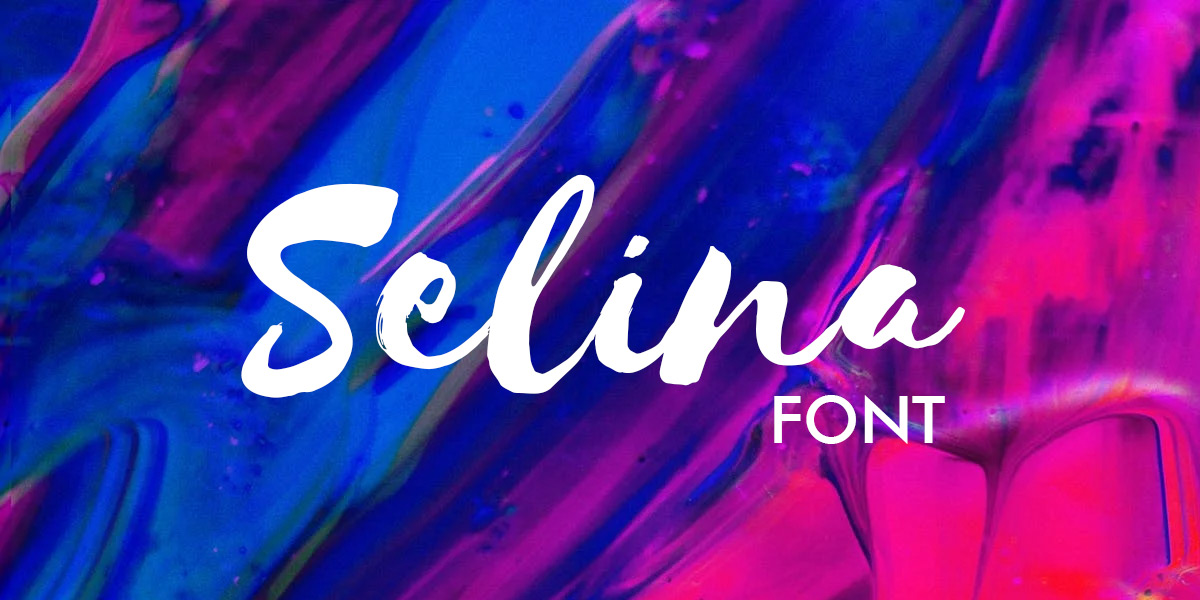
When you’re looking for the right font for your logo, the sheer volume of choices you’re confronted with can be overwhelming. The quickest way to cut that volume down and find the perfect font is to go into the search with a clear idea of which kind of font meshes best with your brand.
Choosing the Right Font for your Logo
The right font for your logo isn’t a question of personal preference. Your logo needs to match your brand. Fortunately, finding the right font for your brand is more math than art, and here are the formulas you’ll need to work it out:
formal and sophisticated = serif font
casual = sans serif font
bold and action-oriented = bold font
homegrown and organic = handwriting-inspired font
modern and cutting edge = futuristic font
quirky and fun = creative font
So before you can choose a font, you need a crystal clear understanding of your brand. Are you an in-your-face startup posed to upend your entire industry, or an old-school service provider who prides themselves on maintaining good old-fashioned values? If you need help figuring out your brand and how a font works into your branding, check out our article on the different font families.
Take a look at five examples of our diverse fonts from each of our six categories.
Rounded
Rounded fonts, like rounded shapes, are a great choice for any brand that has an approachable, engaging feel. There are lots of ways a font can do rounded, like:
Klasik
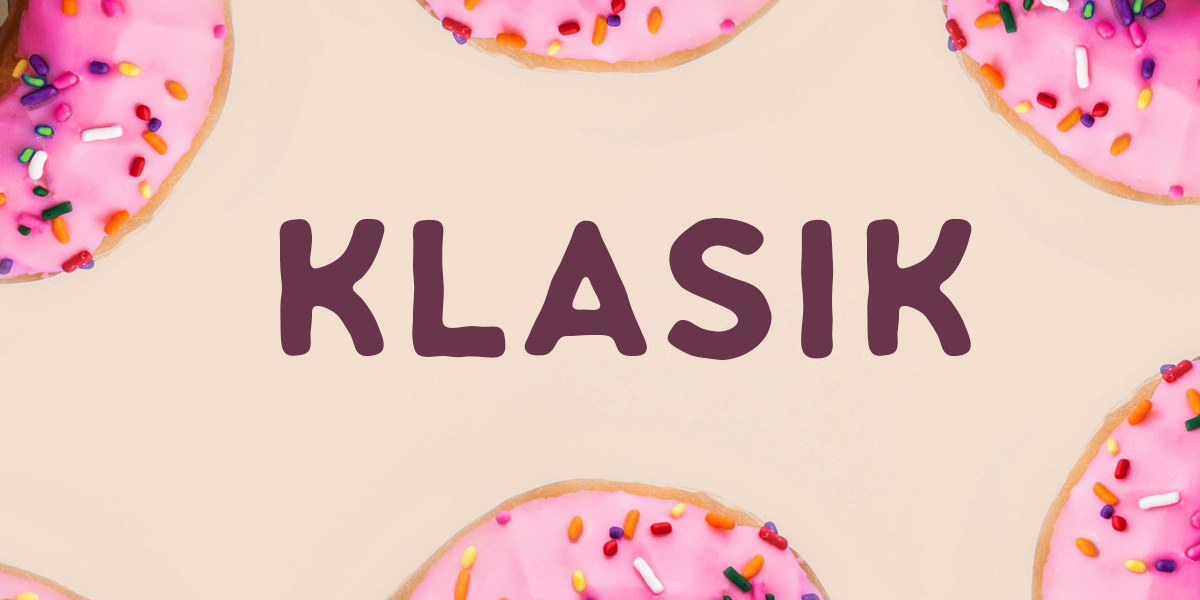
Klasik is an all-caps, unconventional take on rounded fonts. One of the things about Klasik that makes it stand out is that the edges of the letters aren’t perfect straight lines; they have a hand-shaped, malleable quality that makes them look like they’ve been sculpted with dough. This makes it a perfect font for bakers, sculptors and any company that brands itself as handcrafted.
Fontastique
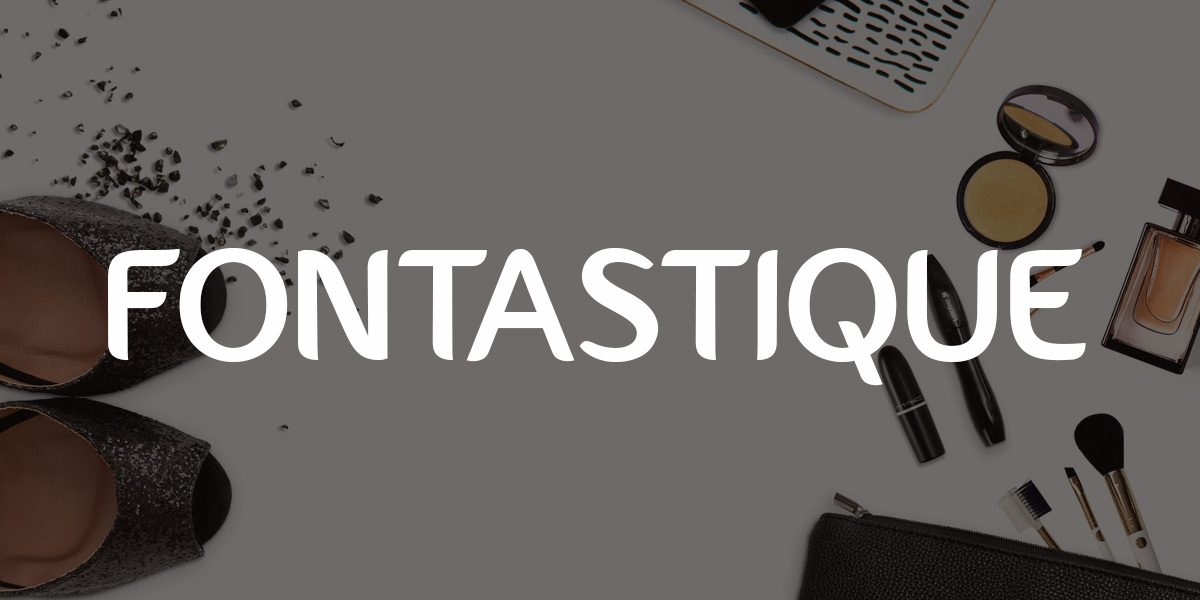
Fontastique goes beyond what we typically expect in a sans serif font by turning portions of its letters into almost-complete circles. For an example, take a look at its lowercase D. As a curvy font with very few hard angles, Fontastique has a soft, feminine feel that makes it perfect for any women’s apparel or beauty brand.
Orborn
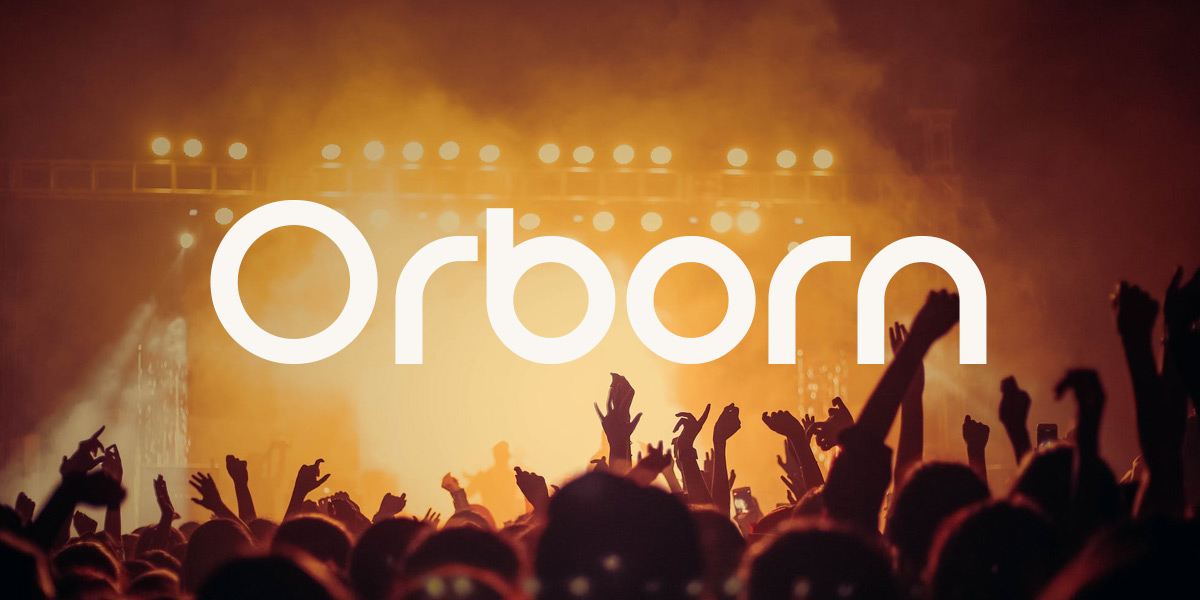
Much like a few other rounded fonts, Orborn turns certain letters (like its lowercase A) into perfect circles. One of the cool things Orborn does is turn some of its capital letters into larger versions of lowercase letters, which only adds to the friendliness factor and makes it a great choice for any brand that aims to feel like the life of the party.
Maxwell
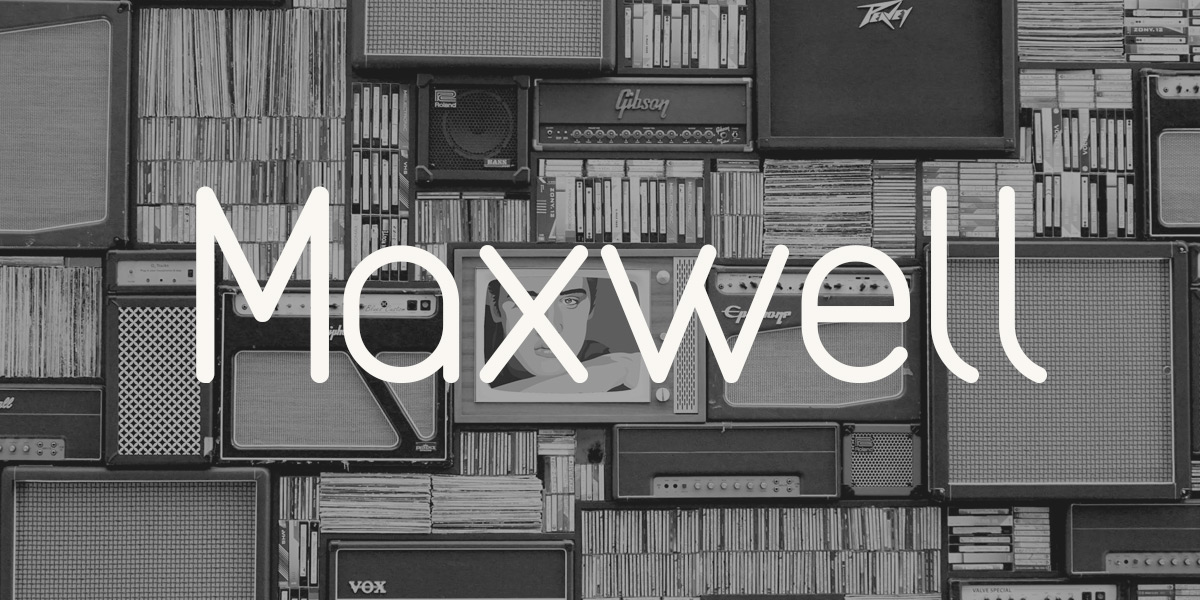
Maxwell is a font that’s got straight lines, rounded edges and a few quirks. Take a look at its capital H and the height of its lowercase I. It’s a font that looks clean and conventional at first glance, but once you spend a little more time with it, its personality shines through. Maxwell’s a great choice for a brand with a similar persona: clean-cut, but with a funky undercurrent.
Aquatico
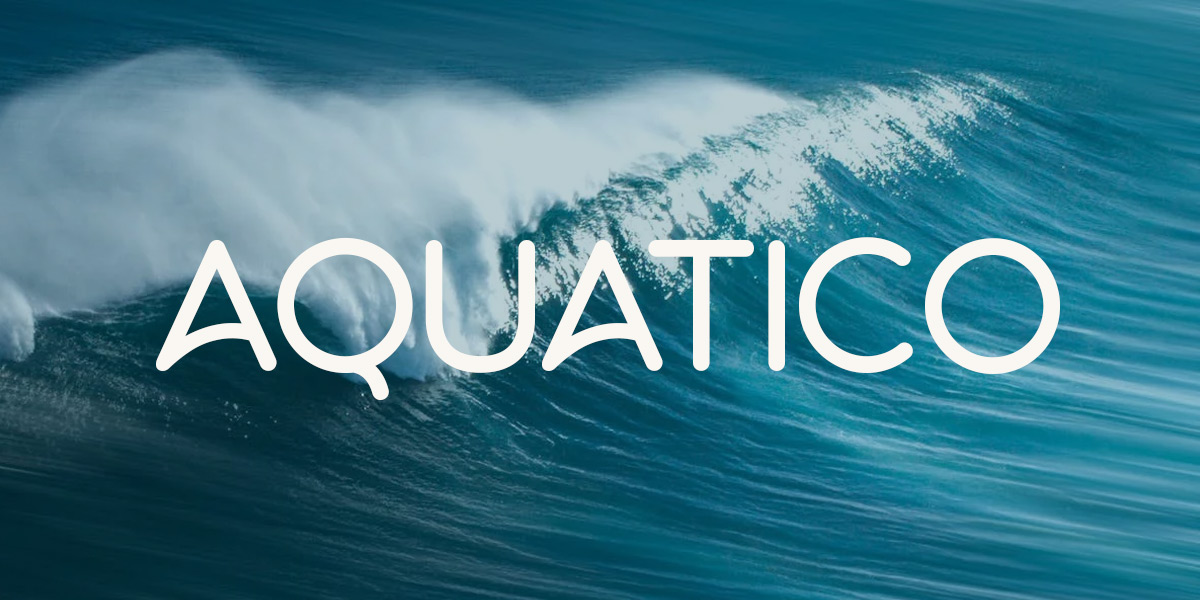
As its name implies, Aquatico has an aquatic feel. Take a look at its capital A to see the shape of a cresting wave in the middle line. That’s not the only spot where this rounded font feels open and free like the ocean. Certain capital letters, like K and R, have detached sections (take a look in our logo maker to see what we mean) that give it a cool, casual open-air feel.
Creative
As you can probably imagine, our collection of creative fonts is our most varied. These are the fonts for brands that don’t fit into conventional boxes.
Inzomniak
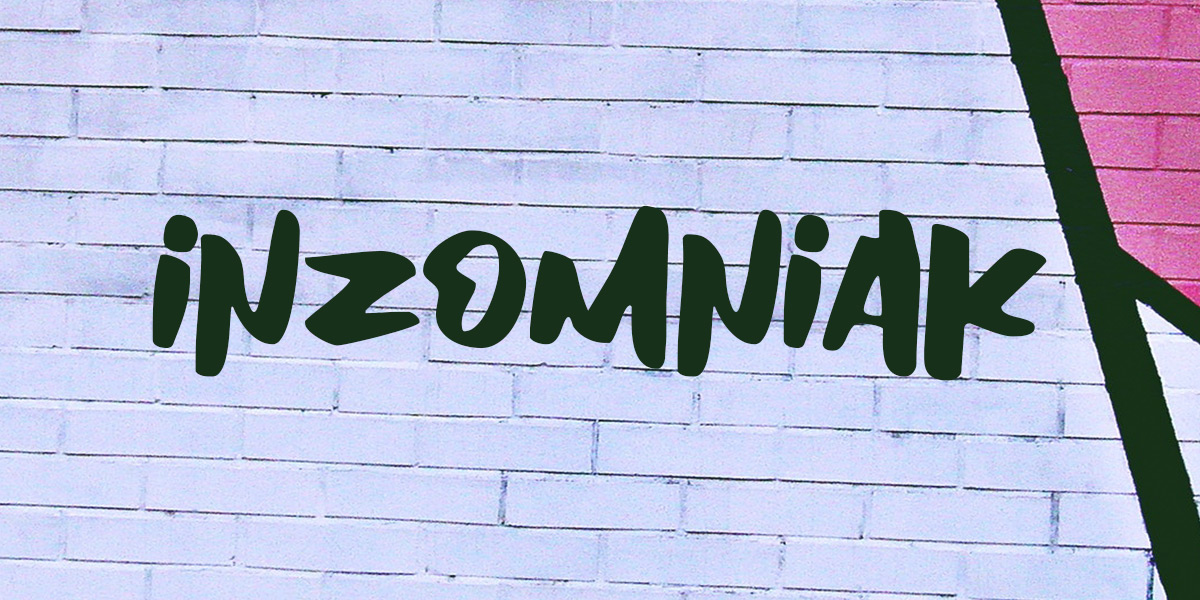
Inzomniak font makes any text look like it was scribbled with a chisel tip marker. If you want your text to look like graffiti, Inzomniak is a great choice. It’s angular, it’s edgy, the letters aren’t all the same size and the strokes aren’t even. And that’s why it works. It’s not polished and it doesn’t try to be, which makes it the perfect choice for any brand that can say the same about itself.
Shintia script
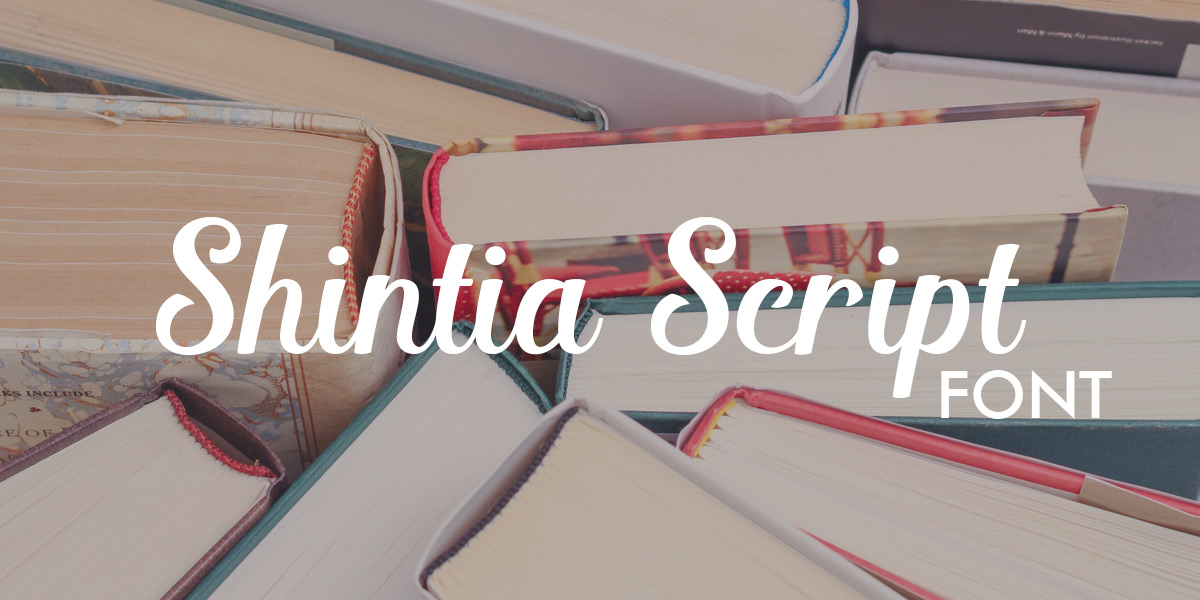
Shintia script contrasts with Inzomniak in a lot of ways. It’s neat, its letters feel balanced and overall, it’s cute. The oversize capital letters and long, hanging serifs give it a whimsical, handwritten feel that makes it appropriate for any brand that considers itself whimsical or twee.
Wonderful
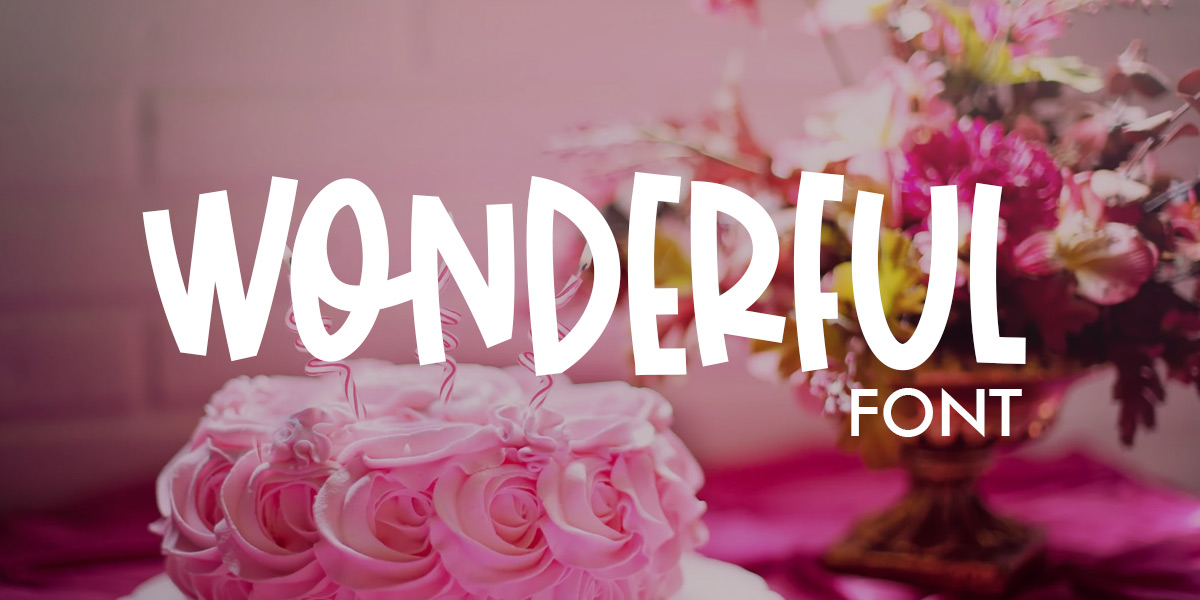
Wonderful is a wonderfully goofy, fun font. That’s why it’s an obvious choice for any brand meant for kids at heart. No serifs here; just bendy, bouncy, uneven letters that feel like they’re urging you to get on the trampoline with them and have a great time.